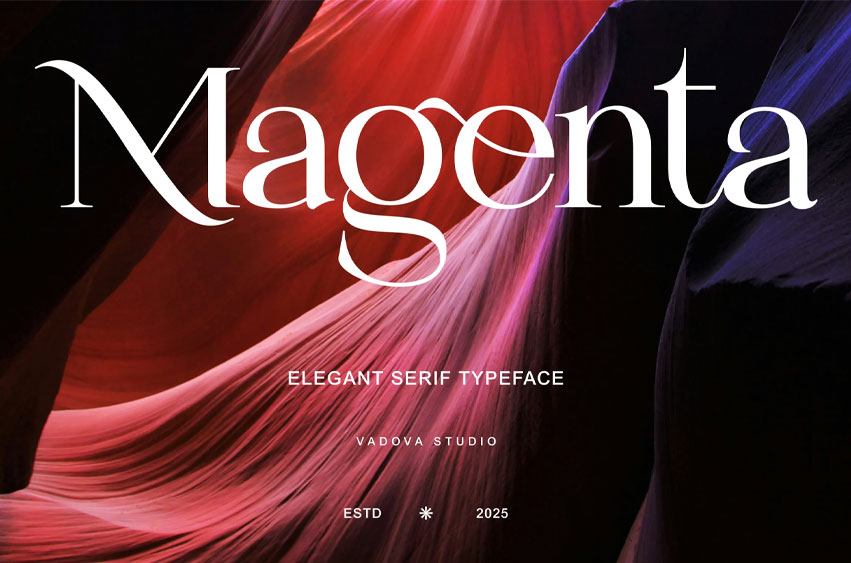
Magenta Serif Font
Magenta Serif Font Elegant Serif Font is a sophisticated serif typeface that combines timeless grace with modern expressiveness. Its refined structure speaks to the aesthetics of high fashion, luxury print, and curated storytelling. Every curve and serif flourish adds a dramatic flair, creating a voice that is both commanding and poetic.
Crafted for designers seeking a balance between classic editorial flair and contemporary detail, Magenta exudes quiet power and soft authority. It thrives in emotionally driven visual narratives like fashion editorials, lifestyle publications, or upscale beauty packaging. Its contrasting strokes and sharp, elegant terminals bring fluid movement to the text, making it visually rich while remaining highly legible.
The letterforms are slim yet strong, echoing traditional serif forms with a modern twist, making it a top choice for art-directed covers, poster layouts, magazine headlines, book titles, and premium branding. Whether used in a whisper of elegance or a bold, cinematic presence, Magenta leaves a lasting impression of sophistication and narrative power.